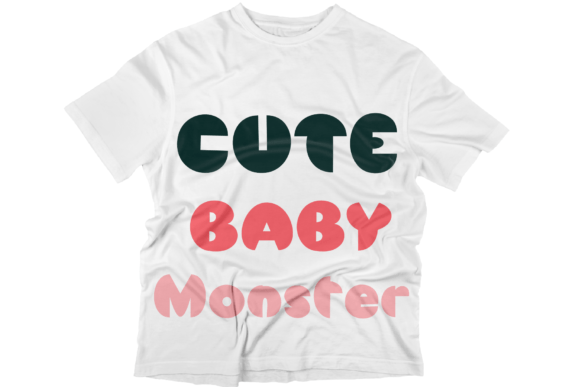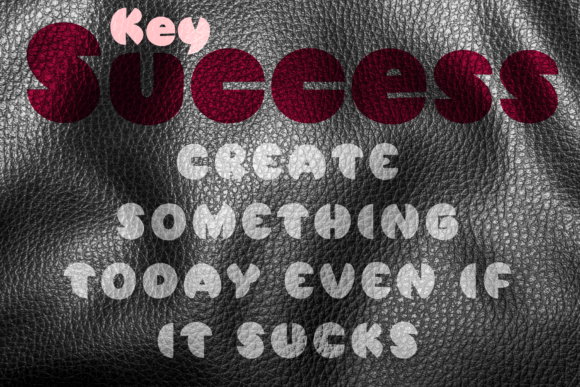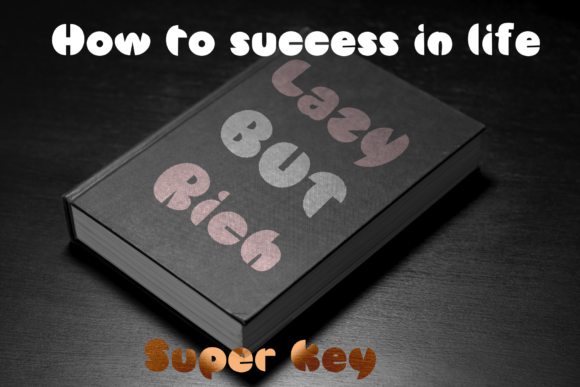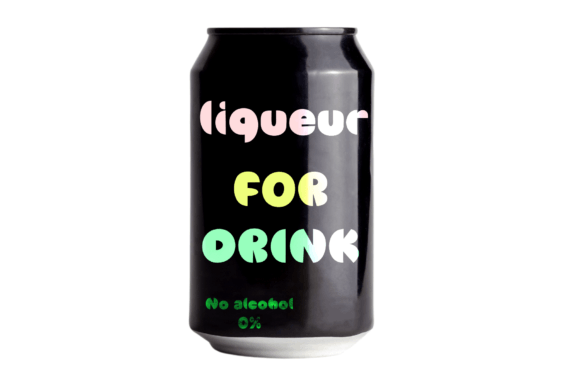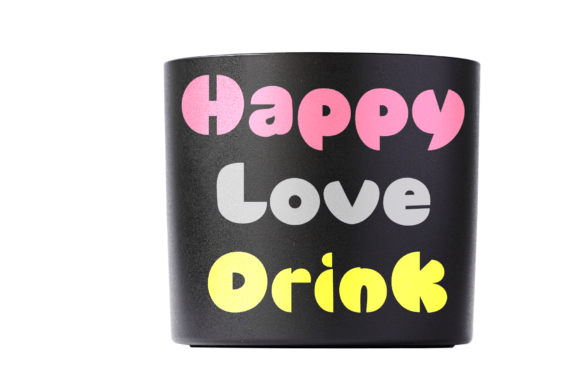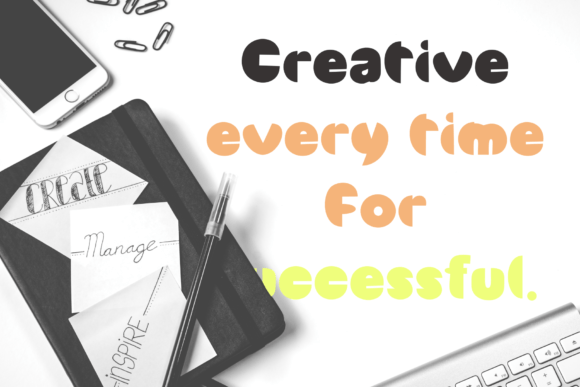
The Perfect Dose of Playfulness: Introducing the Half Round Font
Have you ever stumbled upon a font that just makes you smile? You know, that font that adds a pinch of fun to your design and makes everything feel more vibrant and alive? For designers, finding that perfect font can be a game-changer. And today, we’re excited to introduce you to the Half Round Font, a playful bold font that’s sure to bring a dash of fun to your designs.
With its curvy and bouncy letterforms, the Half Round Font brings a jovial vibe that’s perfect for adding a touch of cheerfulness to your projects. Whether you’re working on a logo, a headline, or just need a font that exudes confidence, the Half Round Font is a valuable addition to any designer’s toolkit. Its bold and playful nature makes it a must-have for designers looking to add a little extra oomph to their designs.
- Unique Characteristics: The Half Round Font features a unique, hand-drawn design with rounded edges, giving it a distinctive and elegant look.
- Legibility: Despite its decorative nature, the font is highly legible, making it suitable for a wide range of applications, including body text, headings, and titles.
- Language Support: Half Round Font supports a wide range of languages, including Latin, Cyrillic, and Greek alphabets, making it a versatile choice for multilingual projects.
Half Round Font Review
As a designer, I’ve had the chance to work with various fonts, and Half Round Font is one of the more interesting ones I’ve come across. ✨ One of the things that works well is its uniqueness. It’s not your typical font, and that can be a good thing if you’re looking for something that stands out.
Another aspect that I appreciate is its legibility. Despite its unconventional shape, the font is surprisingly easy to read, especially in larger sizes. ✨ It’s also quite versatile, working well in both digital and print contexts.
While Half Round Font has its advantages, there are some limitations to consider. ⚠️ One of the main issues is its limited character set. It’s not a full-fledged font with all the usual characters, which can make it less practical for everyday use.
Overall, I think Half Round Font is a great choice for designers who want to add some flair to their projects. It’s not a font for the faint of heart, but if you’re looking for something unique and eye-catching, it’s definitely worth considering.
- Use in headings or titles to add visual interest
- Pair with other fonts to balance out the design
- Consider the limited character set when choosing this font
- Experiment with different sizes and styles to find the right fit
To get the most out of the Half Round Font, use it in moderation and balance it with other fonts to avoid overwhelming the design. Experiment with different font sizes and styles to create visual interest. Use the font to add a touch of elegance and sophistication to your designs.
The Half Round Font is commonly used in wedding invitations, menus, and other formal documents where a touch of elegance is desired. It’s also used in graphic design, branding, and packaging to add a unique and creative touch.